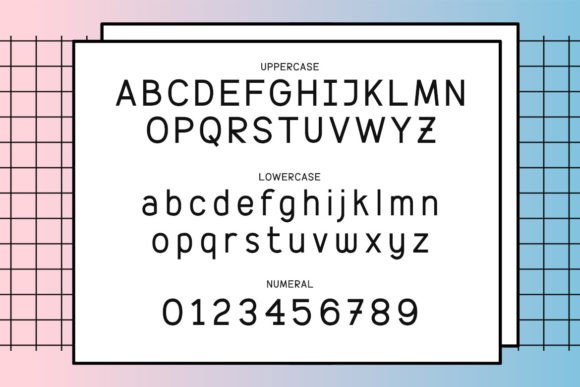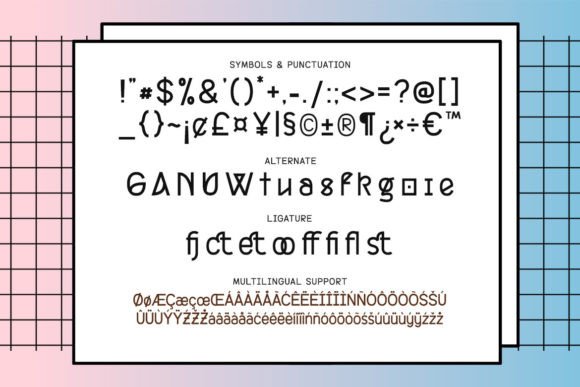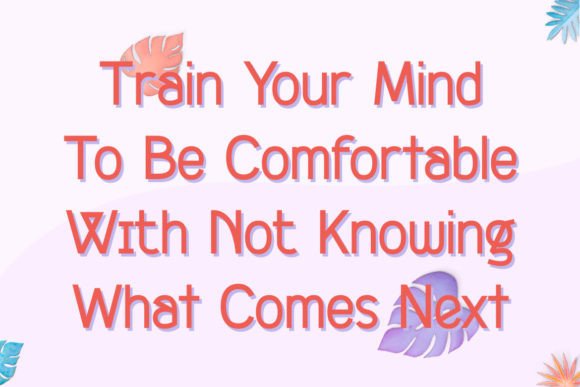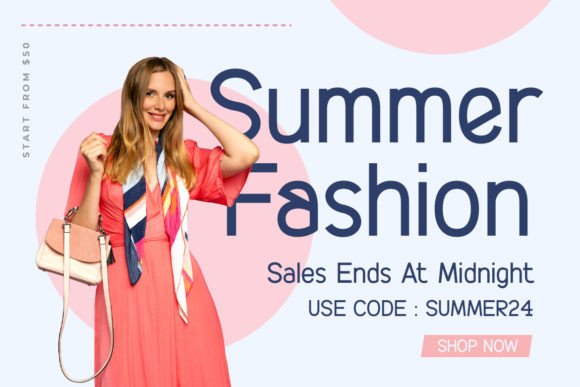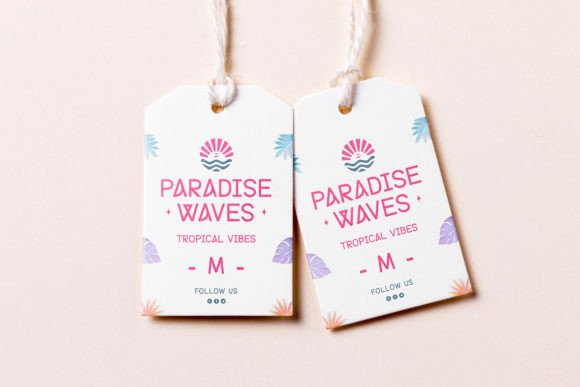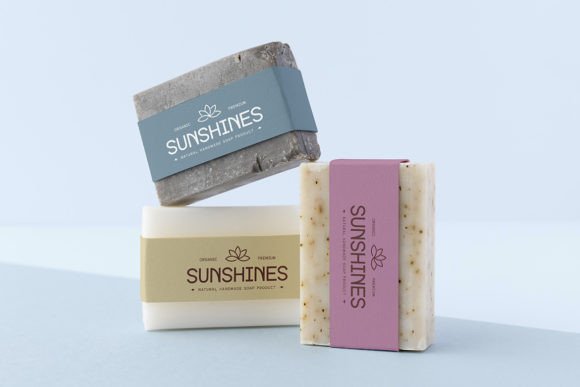
Introduction to Regalia Font
Regalia is a modified sans display font.
No matter the topic, this font will be an incredible asset to your fontsโ€™ library, as it has the potential to elevate any creation .
Key Features of Regalia Font